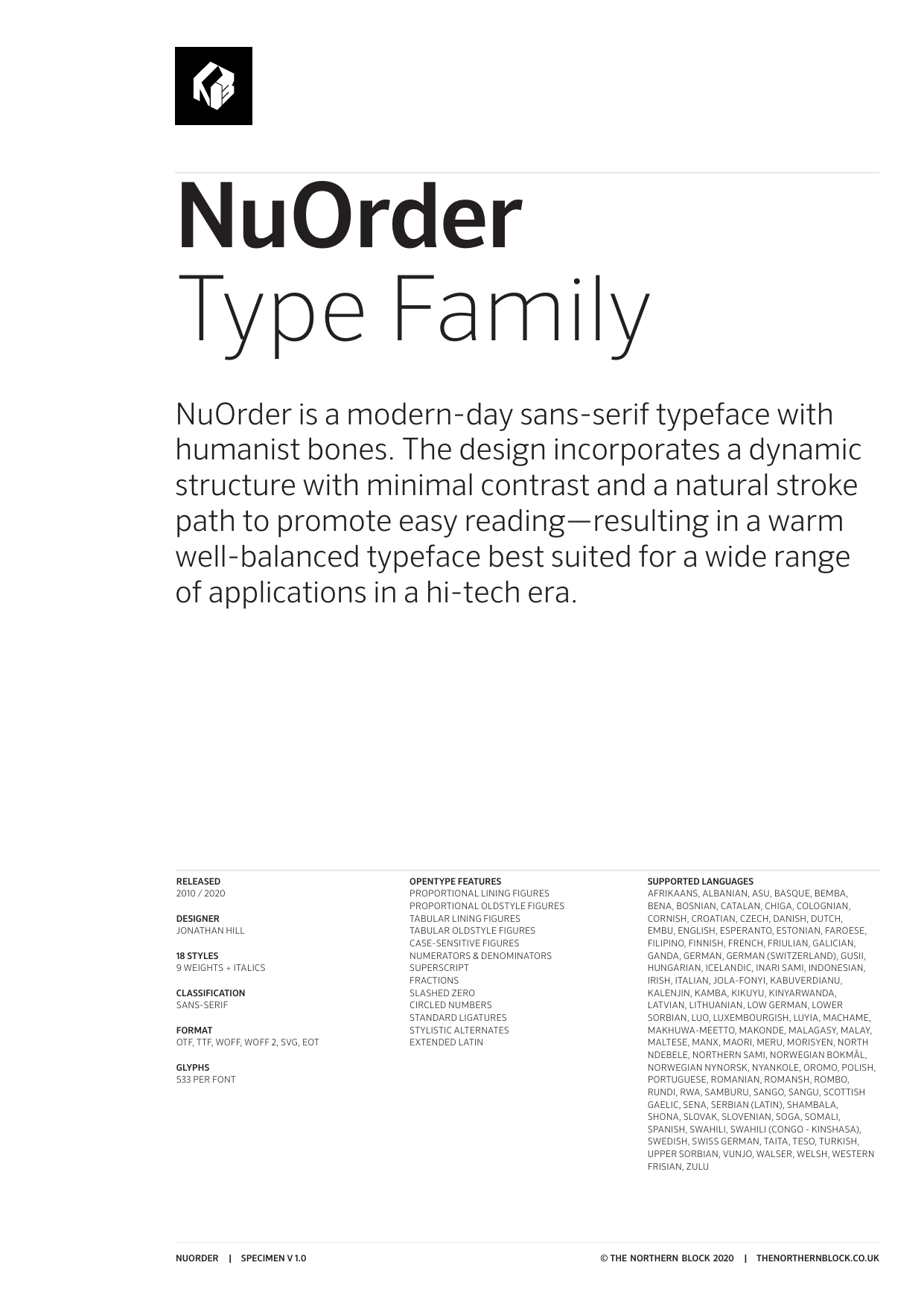
NuOrder
Nu Order is a contemporary sans-serif typeface that seamlessly blends modern design aesthetics with humanist elements. The typeface features a dynamic structure characterised by a balance between clean lines and a subtle organic touch, embodying a harmonious fusion of precision and warmth. With minimal contrast between thick and thin strokes, Nu Order maintains a sleek and legible appearance, ensuring easy readability across a variety of applications.
Designed for the demands of the hi-tech era, Nu Order exhibits a natural stroke path, mimicking the fluidity of handwriting and contributing to its overall accessibility. Its versatility makes it well-suited for a broad range of applications, from digital interfaces to print materials, embodying a contemporary and approachable style.
Details include nine weights with matching italics and over 550 characters per style. OpenType features consist of five variations of numerals, including inferiors, superiors, fractions, alternate lowercase a and g, and language support covering Western, Southern, and Central Europe—remastered to version 2.0 for enhanced OpenType features and usability.